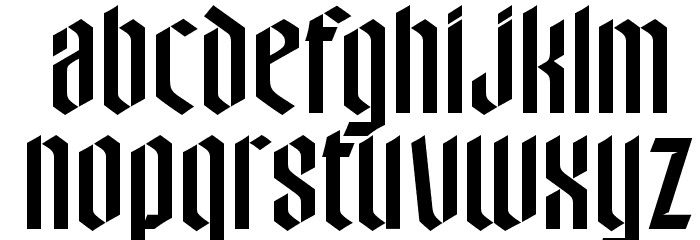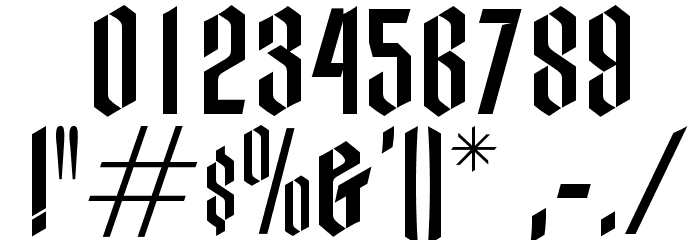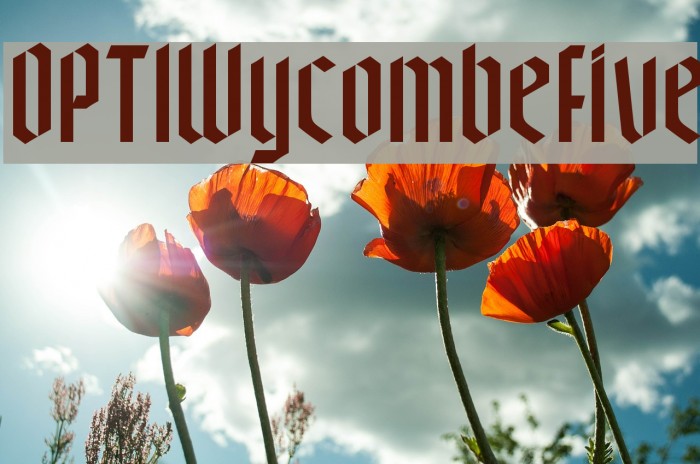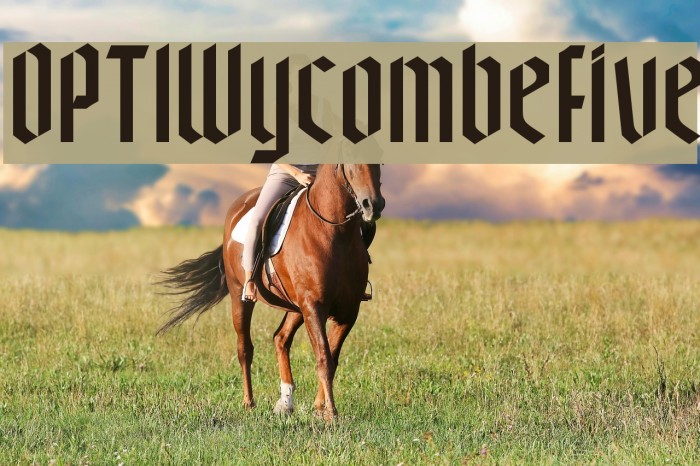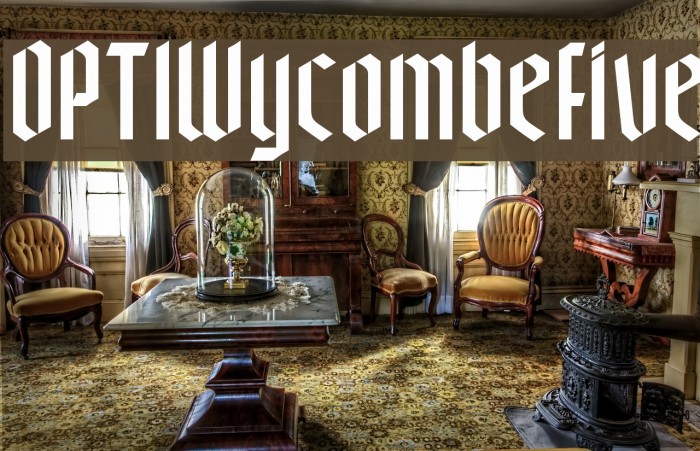
OPTIWycombeFive Font
This font features a bold and striking design with sharp, angular lines and a strong geometric structure. The uppercase letters are tall and narrow, creating a sense of height and drama. The lowercase letters maintain the same angular style, offering a cohesive look across the typeface. Numbers and special characters are designed with the same bold, angular aesthetic, ensuring consistency throughout. The font's unique style makes it stand out, with a modern and edgy appearance that is both eye-catching and memorable.
A bold, angular font with a modern and edgy geometric design.
- Proposed Projects: Ideal for branding, posters, headlines, and any project requiring a strong visual impact.
- Character Spacing: Tight